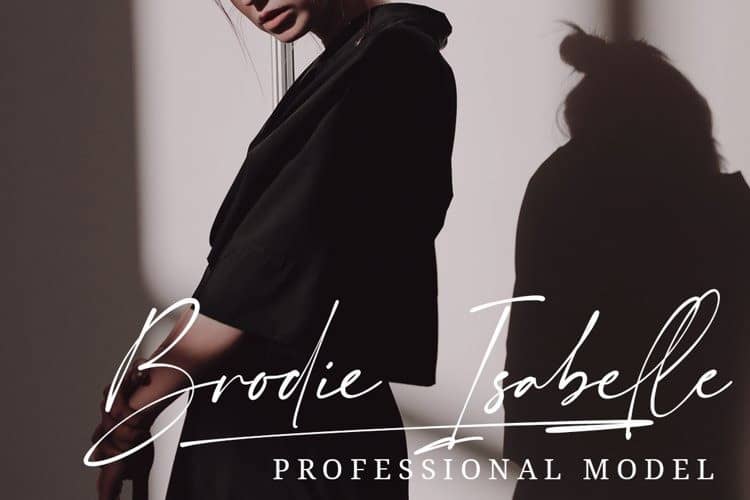
My Everything Script Font
My Everything Script Font is a casual and stylish handwritten font manufactured by Typesthetic Studio that can be used in various design needs. This font is perfect for branding, logos, wedding stationery, cards, gift designs, photography, watermark, product packaging and handwritten quotes. You won’t get cute, whimsical, funny logos with this font. Only high-end, upscale, sophisticated Branding Design.
My Everything Script Font was created to look as close to a natural handwritten script as possible by including 109 ligatures and 9 signature swashes. This font also includes full set of uppercase and lowercase letters, multilingual symbols, numerals and punctuation.